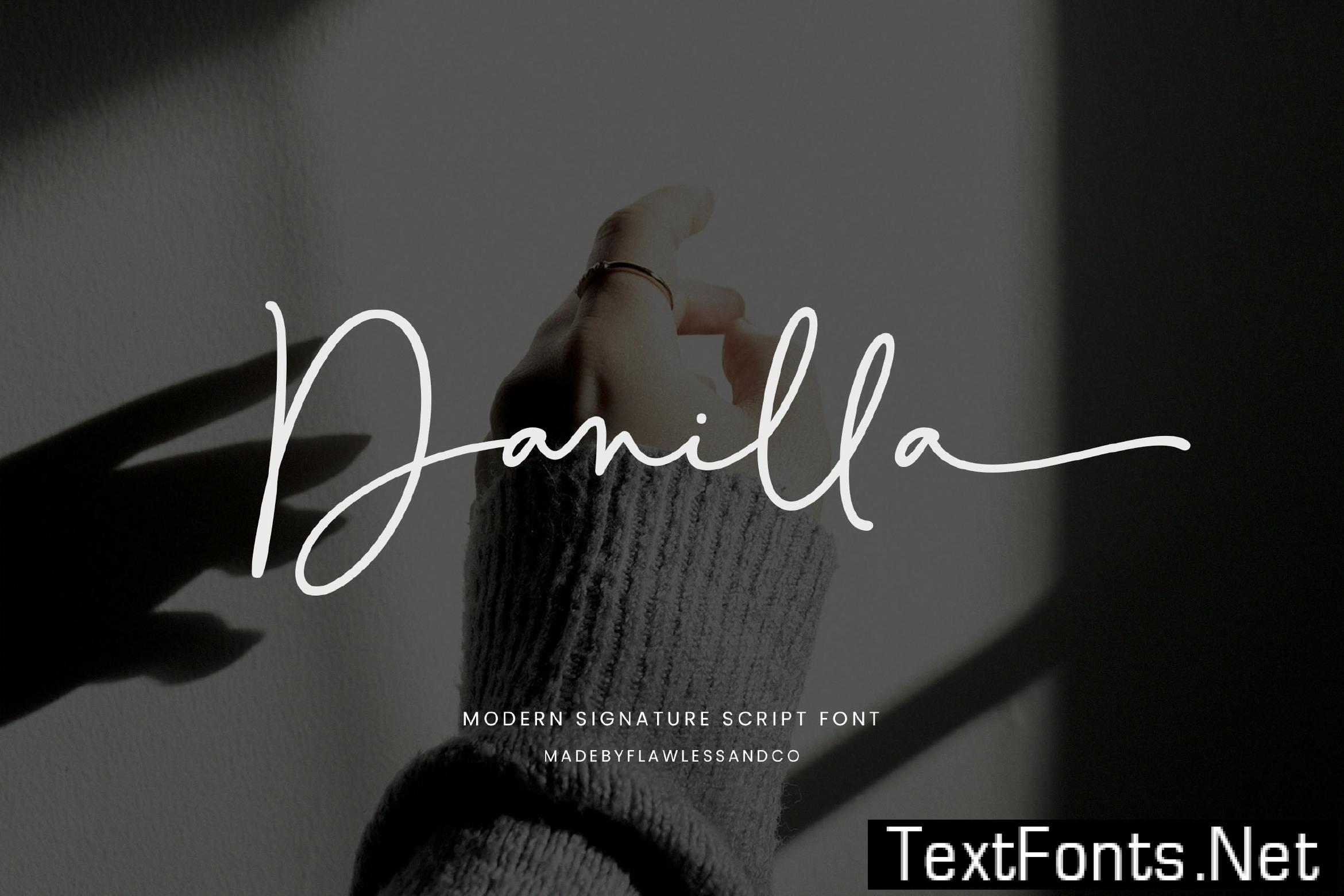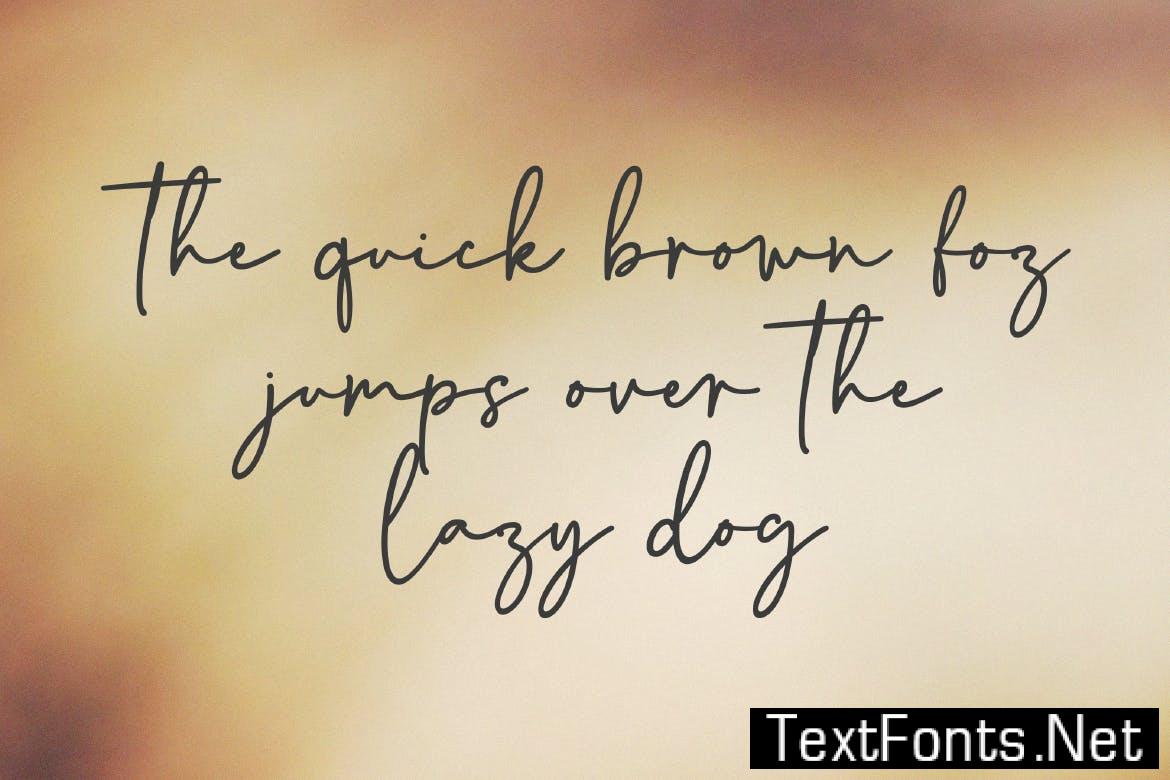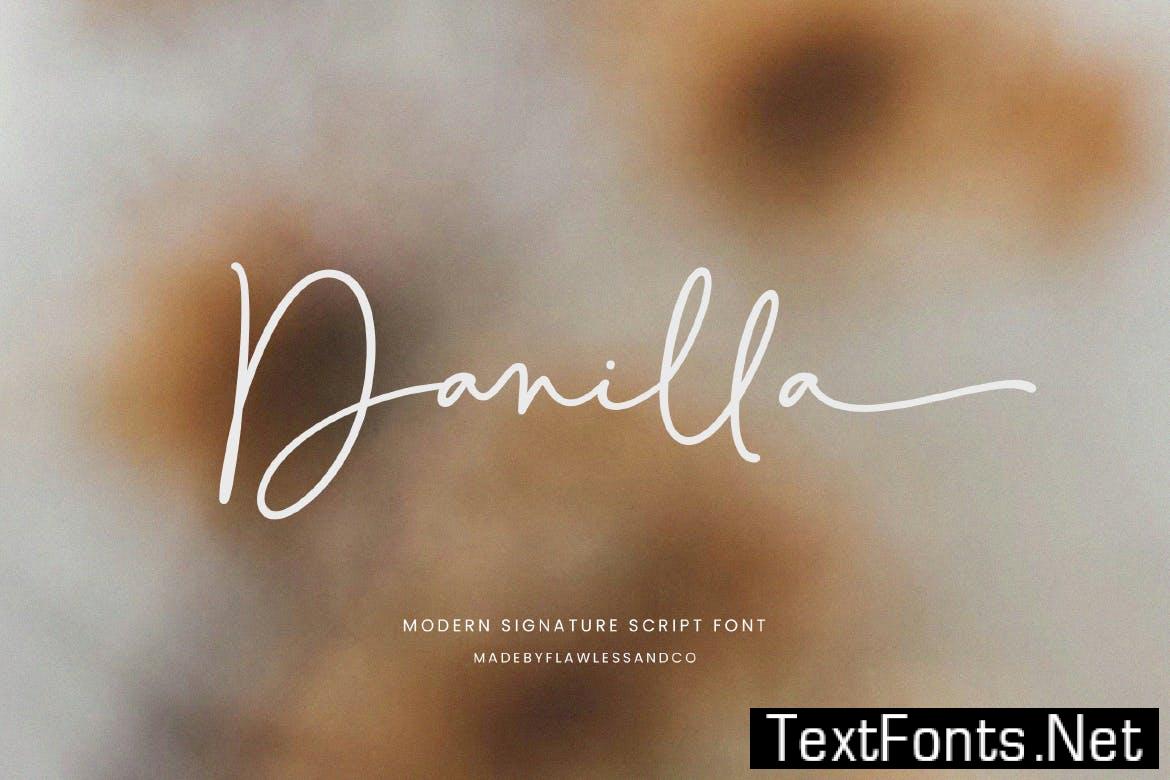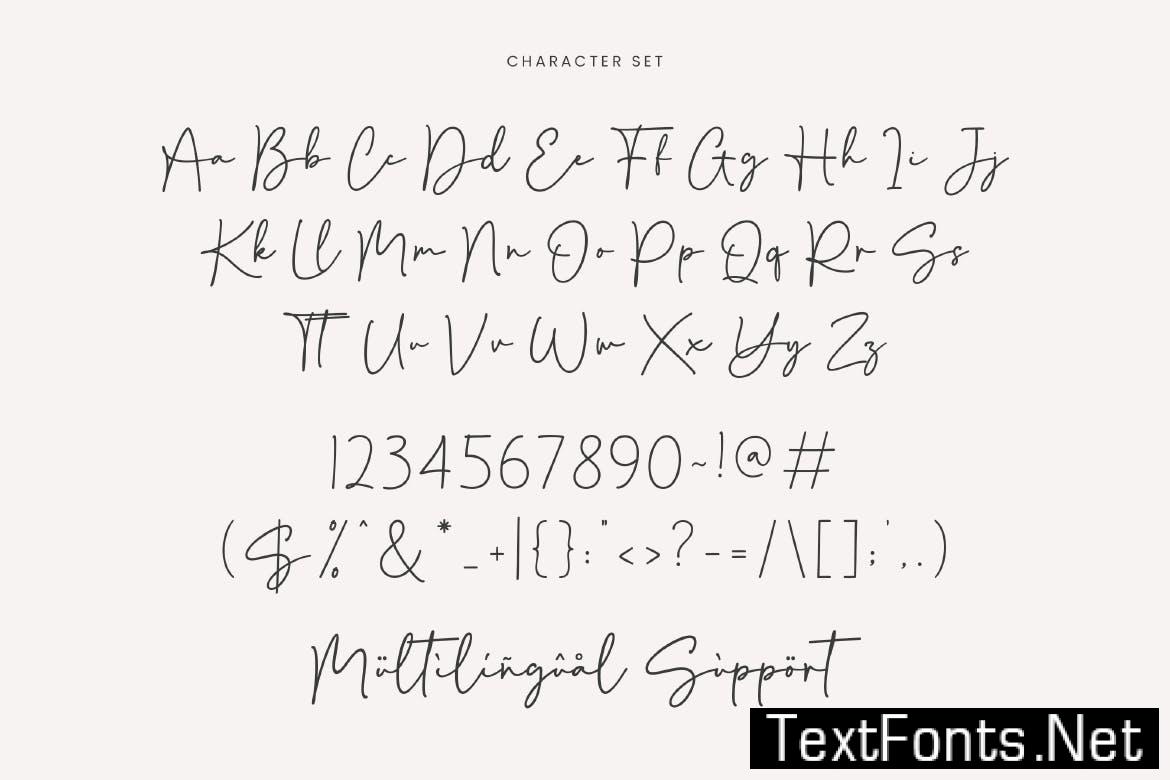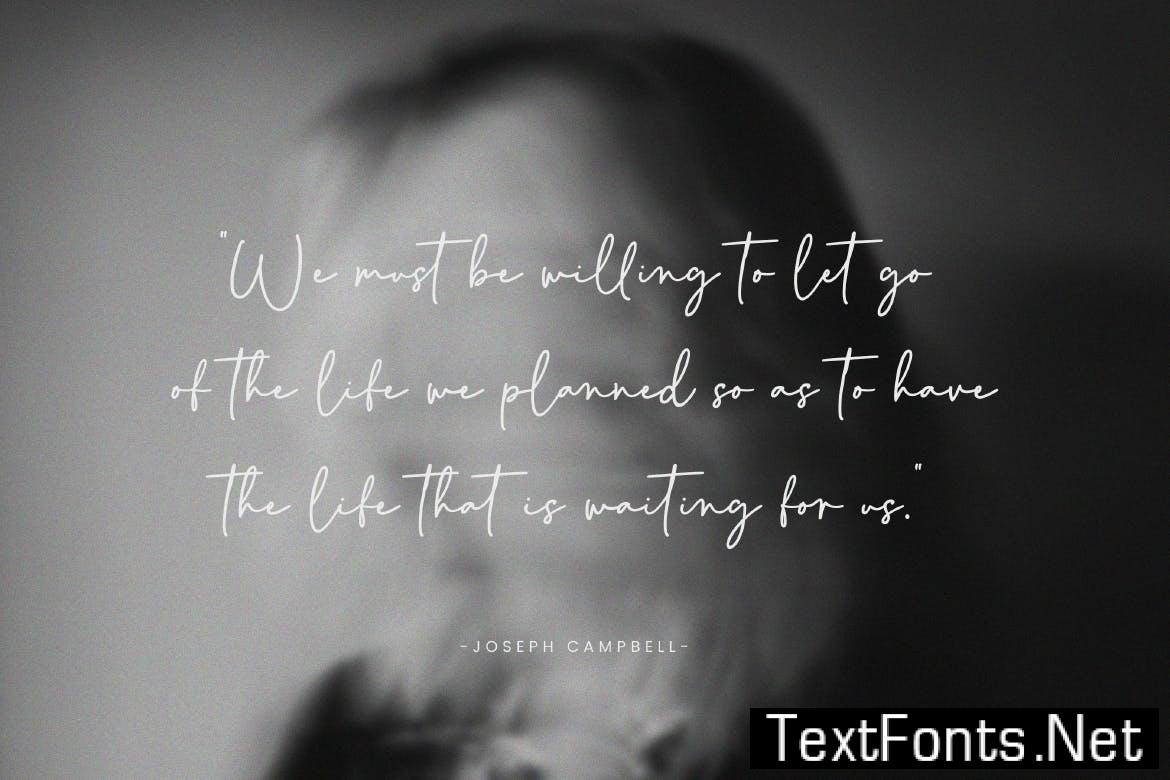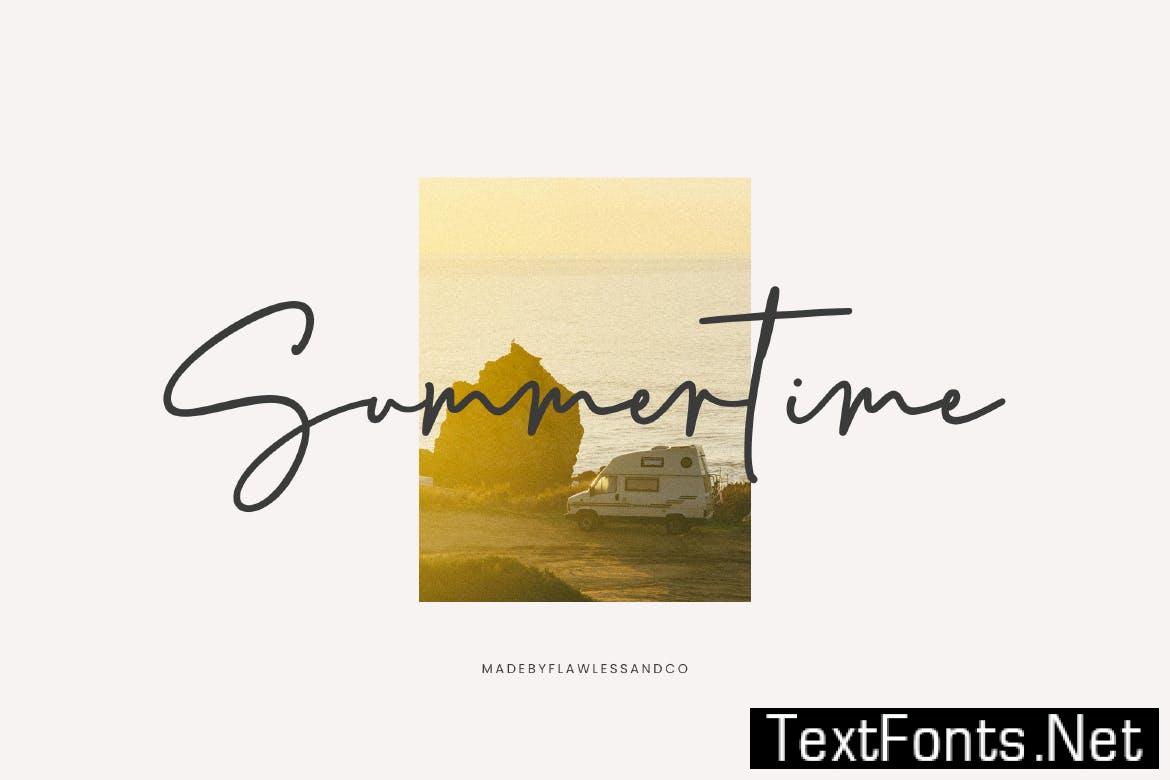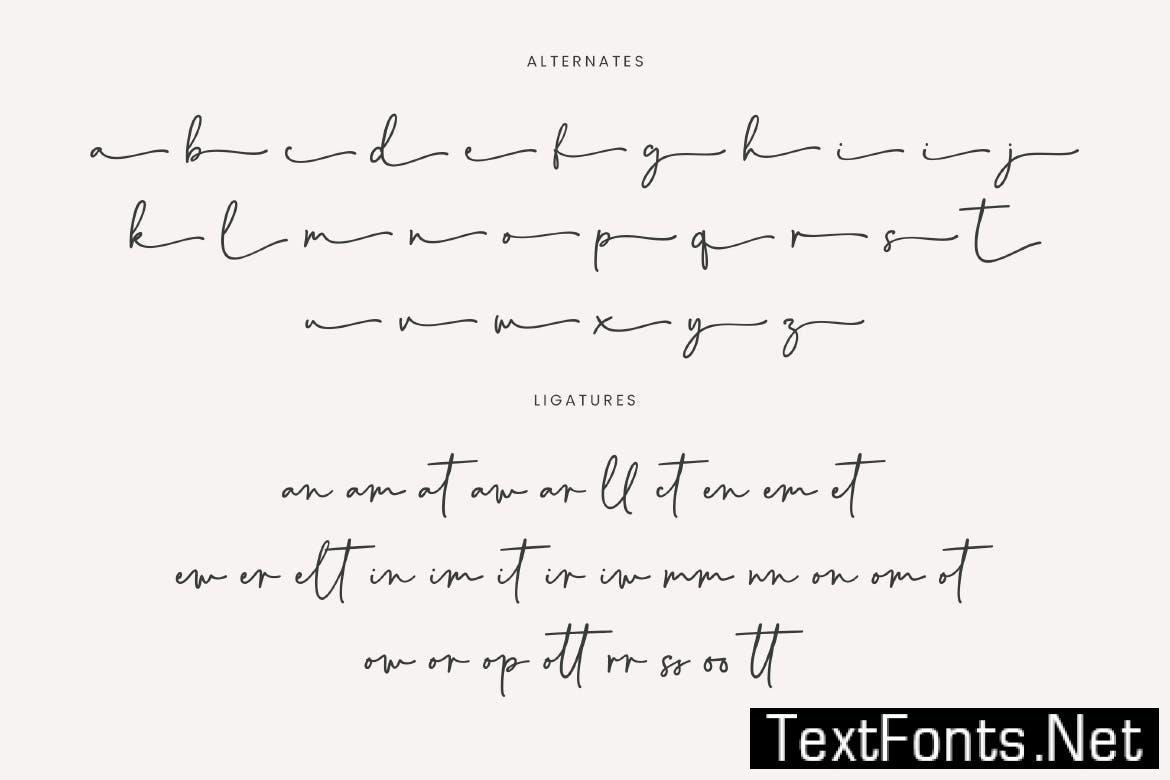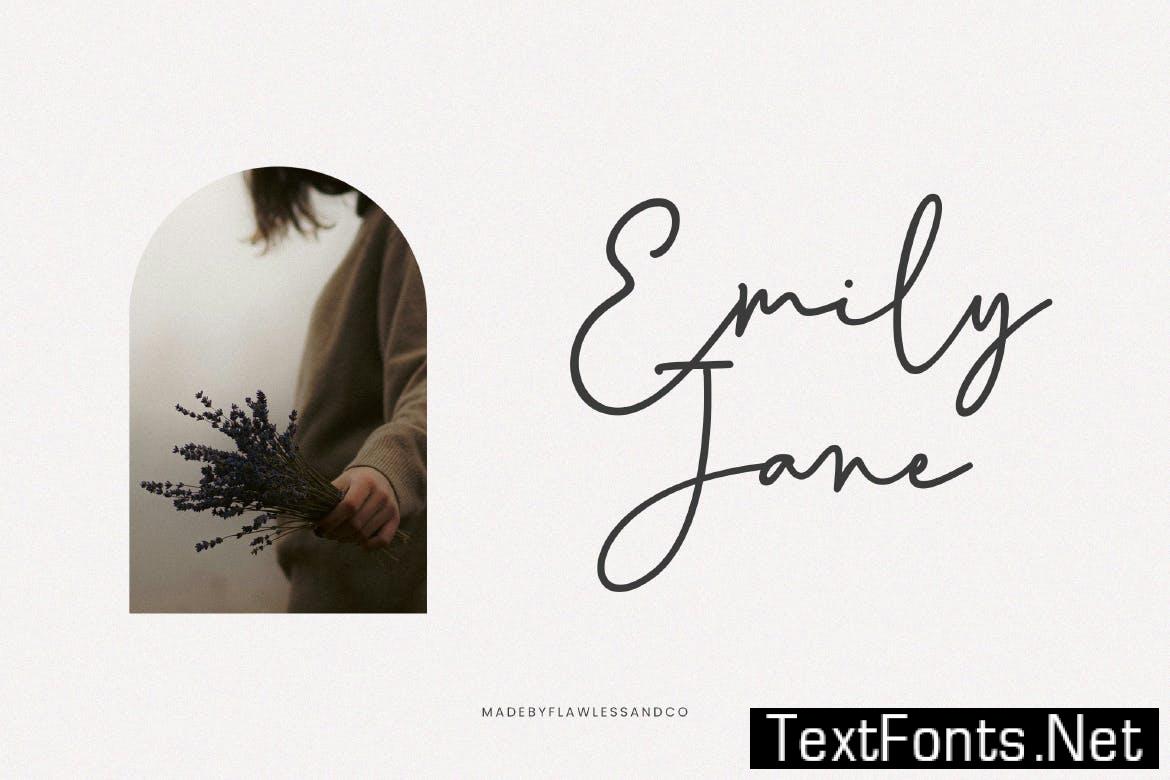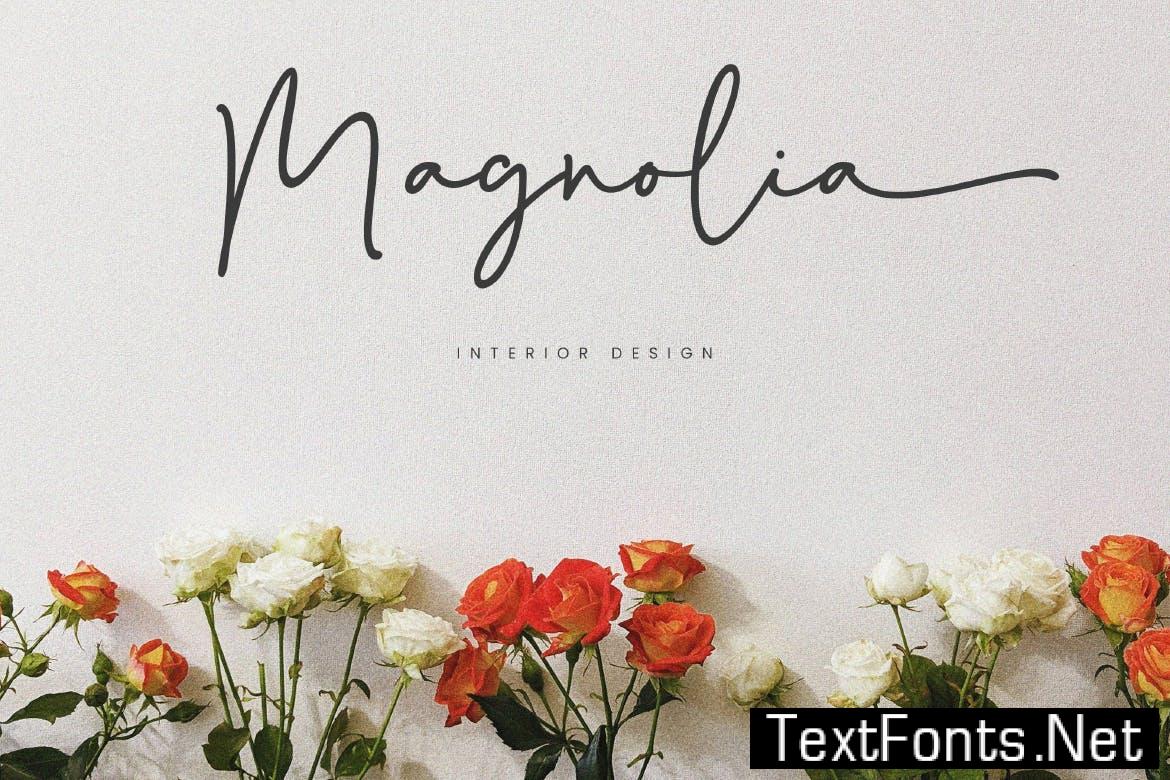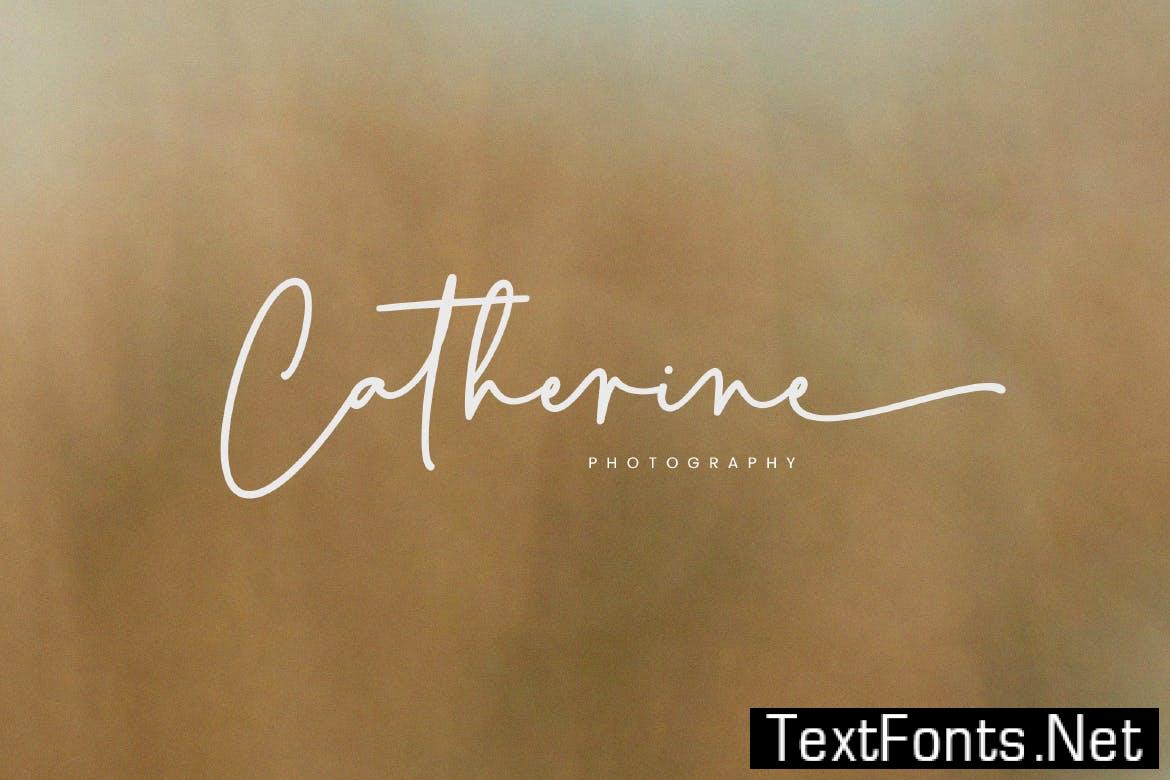
Introducing “Danilla” a modern signature script font. Elevate your designs with “Danilla,” a modern signature script font that exudes elegance and sophistication. With its flowing curves and stylish flourishes, Danilla adds a touch of personal flair to any project, whether it’s branding, invitations, or social media graphics.
Features :
Multilingual
Uppercase alphabet A-Z
Lowercase alphabet a-z
Numbers 0-9
Some punctuation